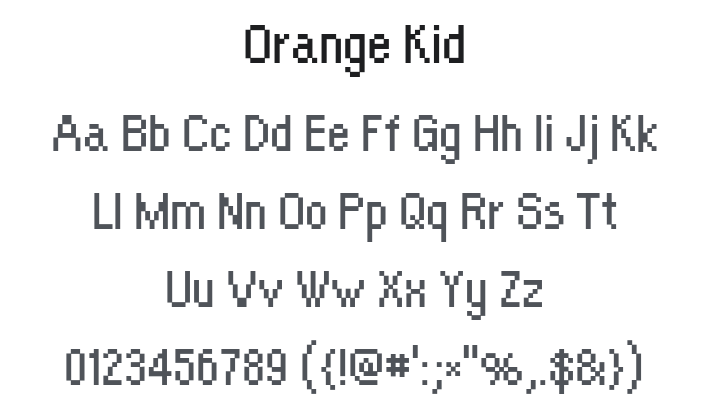
Orange Kid Font
About Orange Kid
Orange Kid is a charming bitmap pixel typeface inspired by Earthbound — the beloved SNES RPG known for its quirky warmth and childlike sincerity. Its small, blocky letterforms carry genuine pixel-art innocence, sized at 13px for crisp low-resolution rendering. Perfect for indie game dialogue, retro RPG interfaces, chiptune music graphics, pixel-art projects, and any design wanting to channel Earthbound's heartfelt, handmade spirit.